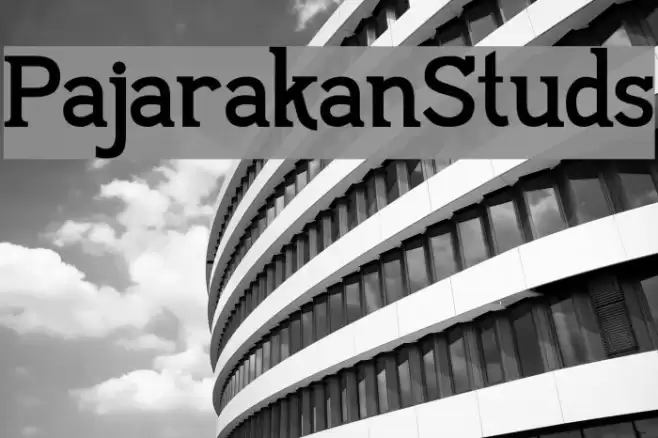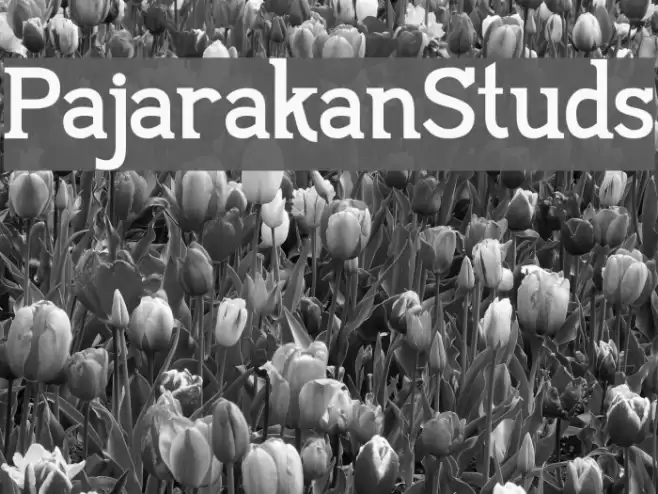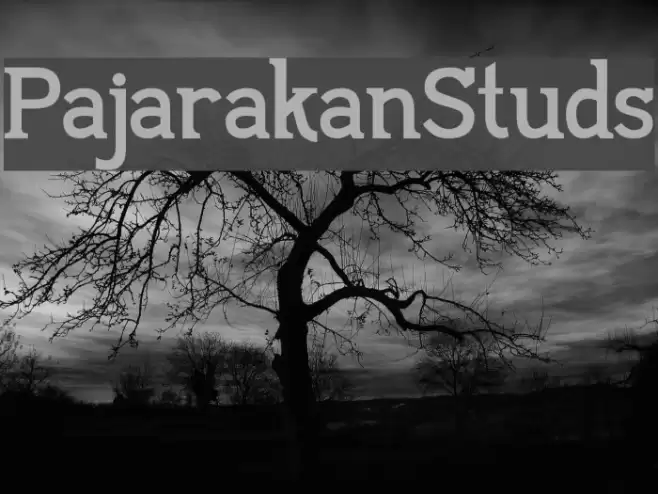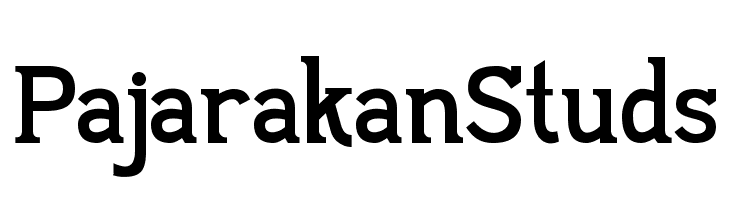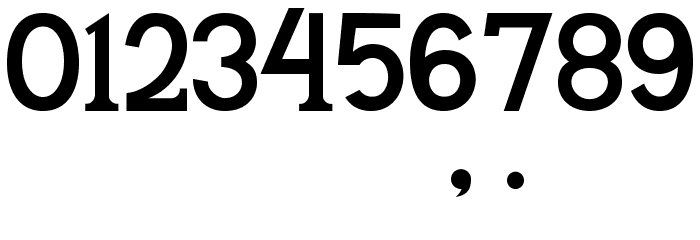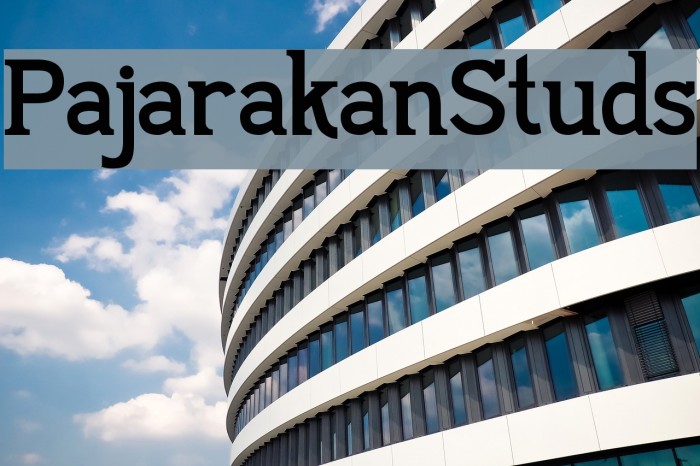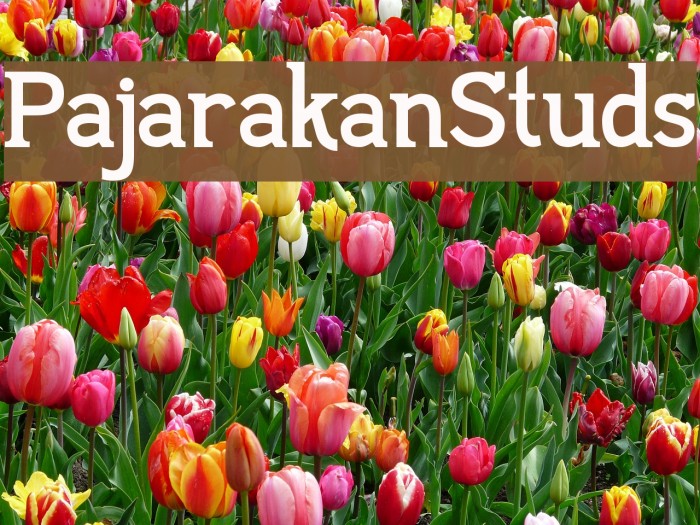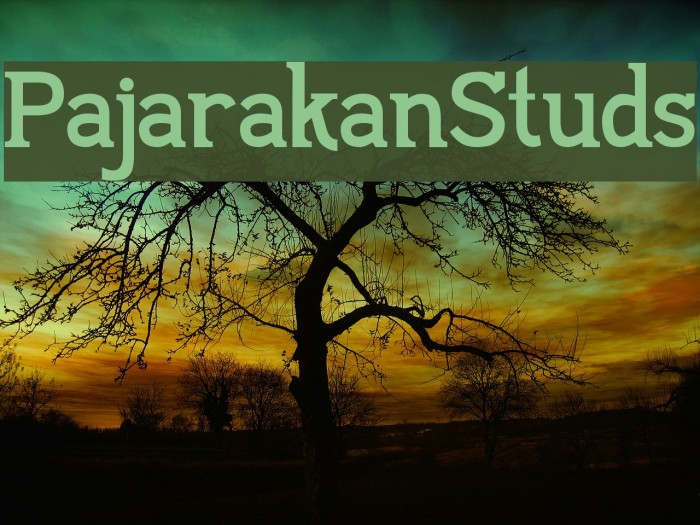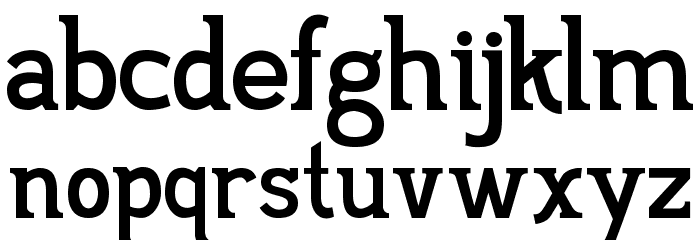
PajarakanStuds Font
PajarakanStuds Description
This font features a classic serif style with pronounced, elegant serifs that give it a timeless and sophisticated appearance. The uppercase letters are bold and commanding, while the lowercase letters maintain a balanced and harmonious look. The numerals are clear and distinct, making them easily readable. The overall design is characterized by a medium contrast in stroke thickness, which adds to its readability and aesthetic appeal. The font's structure is well-suited for both digital and print media, offering versatility across various applications.
A classic serif font with elegant serifs and medium contrast, ideal for sophisticated designs from Uncategorized fonts.
- Proposed Projects: This font is perfect for projects that require a touch of elegance and tradition, such as book covers, editorial layouts, branding for luxury products, and formal invitations.
- Overall Style: Classic